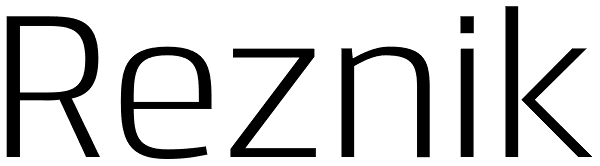
Reznik
A compact sans serif with a technical origin. Each character was drafted out from a grid template and then refined through the application of subtle curved detailing. The result is a precise, contemporary typeface best suited to identity, mobile and...